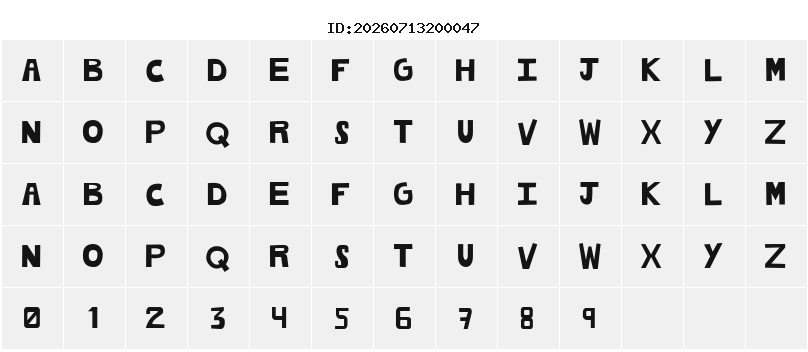
cachetona Preview
• Font Name: cachetona
• Designer: Samuel David Rhinehart Cervantes Orange
• Manufacturer: Samuel David Rhinehart Cervantes Orange
About cachetona.ttf
cachetona.ttf is a modern, elegant sans-serif font designed for ultimate readability and visual harmony. Perfect for branding, headlines, web design, and print materials.